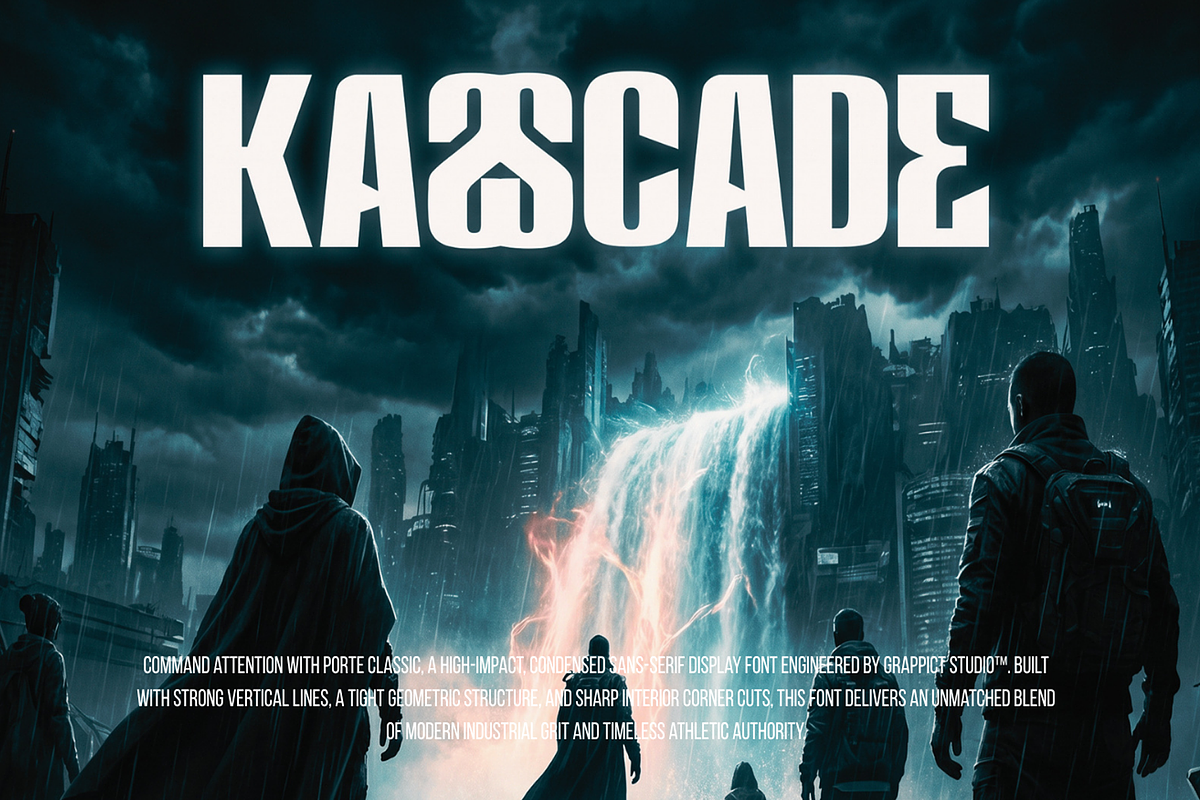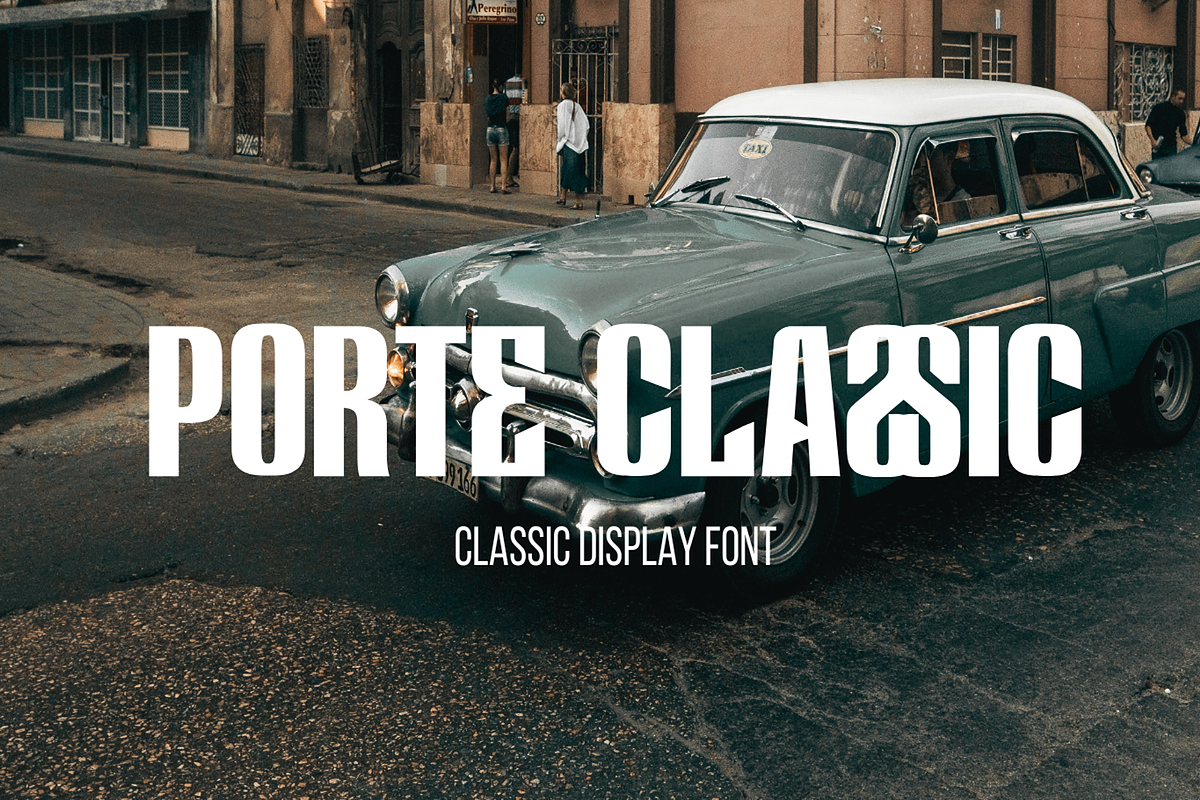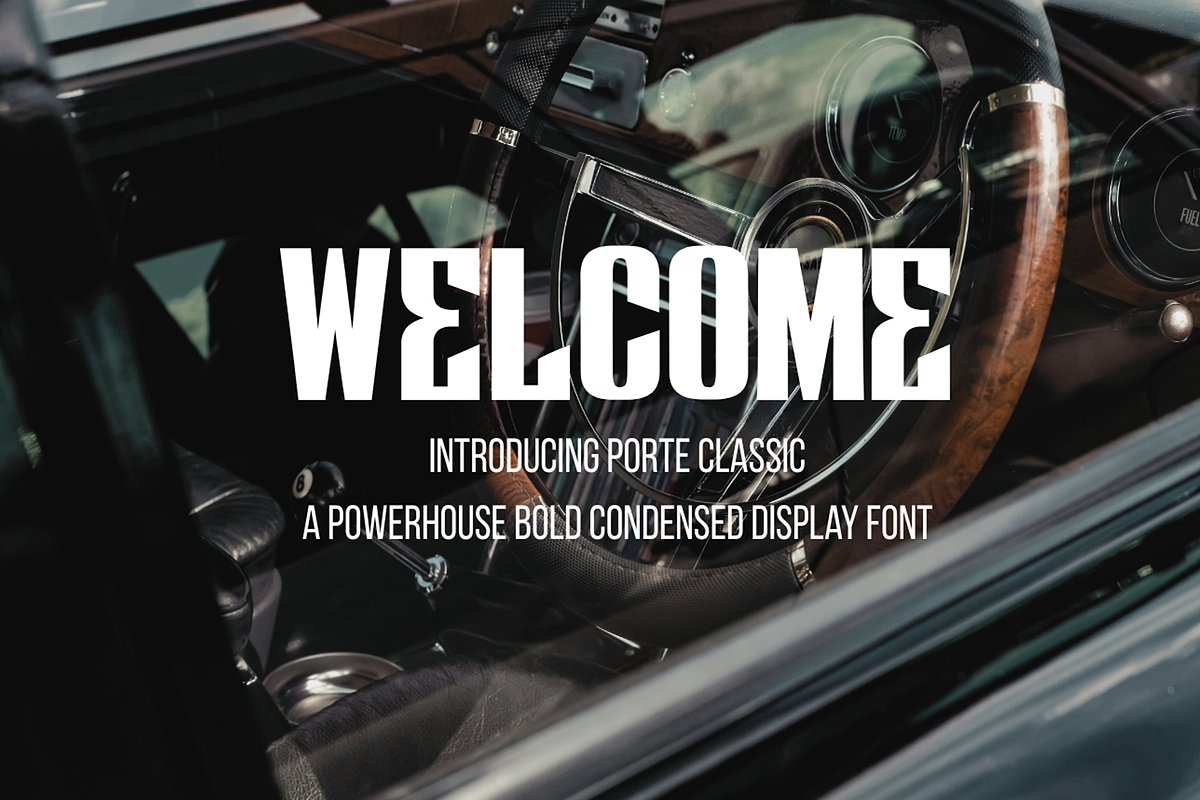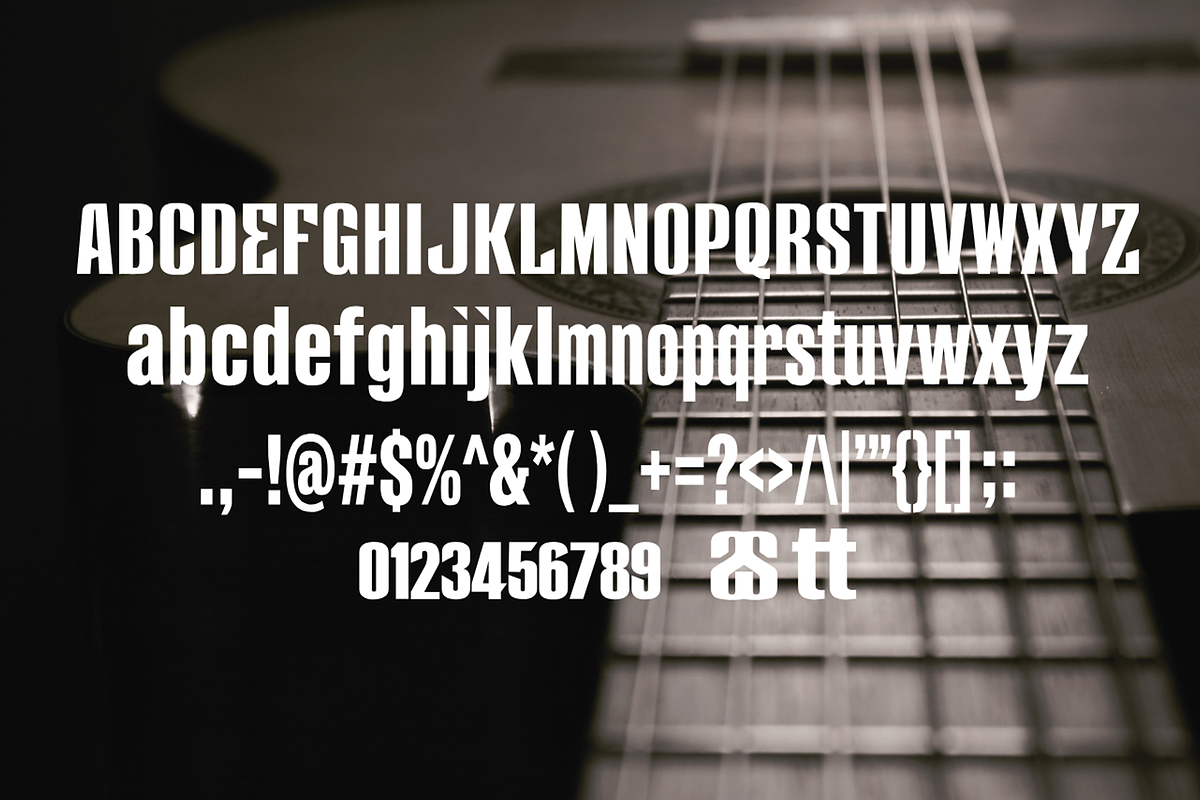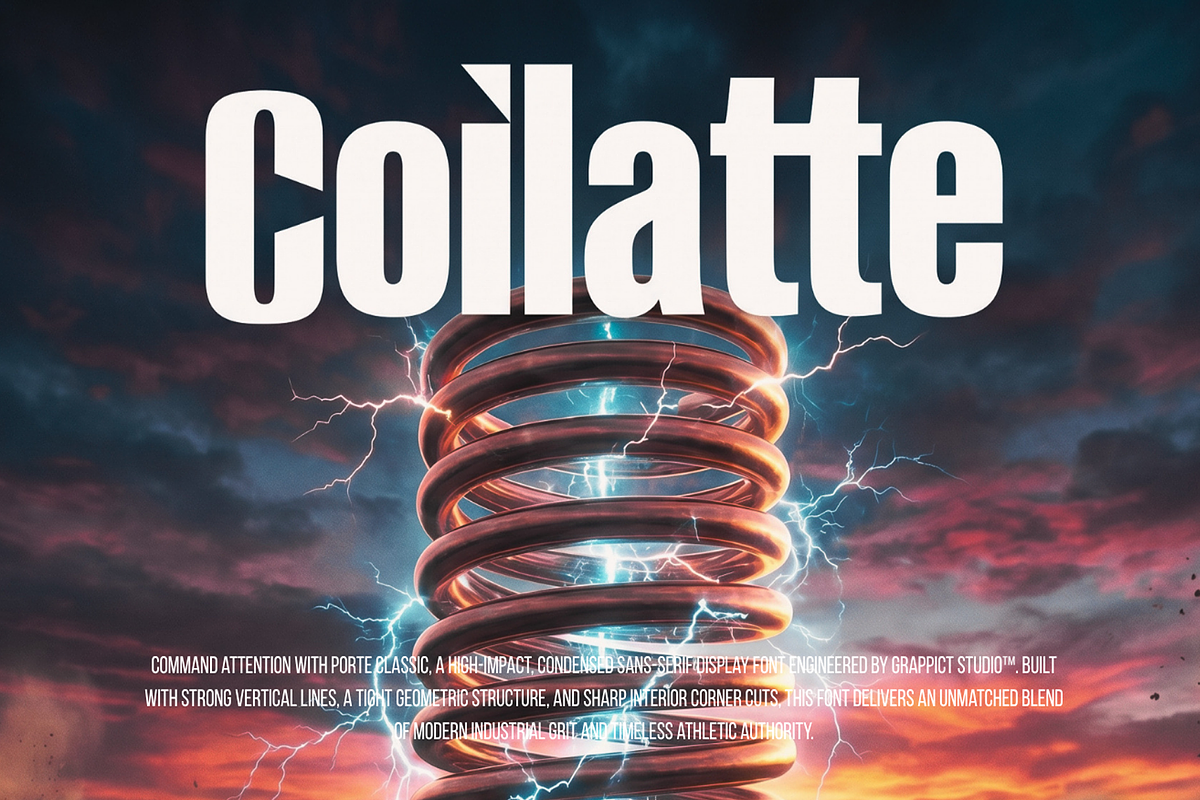
Porte Classic - Bold Classic Display
Introducing Porte Classic – A Powerhouse Bold Condensed Display Font
Command attention with Porte Classic, a high-impact, condensed sans-serif display font engineered by Grappict Studio™. Built with strong vertical lines, a tight geometric structure, and sharp interior corner cuts, this font delivers an unmatched blend of modern industrial grit and timeless athletic authority.
Look closely and you will find subtle, aggressive design details such as the unique architectural cuts in the uppercase 'D', 'E', and 'S' making Porte Classic far more than just your standard condensed font. It is a striking typographic weapon designed for titles that need to scream strength and sophistication.
Ideal for High-Impact Creative Projects:
• Sports Branding & Merchandising: Perfect for jersey numbers, athletic team logos, gym branding, and sportswear apparel graphics.
• Streetwear & Urban Fashion: Give your clothing labels, hangtags, and bold graphic tees an edgy, contemporary look.
• Editorial & Advertising Headlines: Maximum legibility and weight for massive magazine titles, billboard ads, and hard-hitting posters.
• Packaging & Logotypes: Instantly elevates modern product packaging, craft beer labels, automotive branding, and tech logo designs.
• Digital Media & Video Games: Highly visible for YouTube thumbnails, gaming streams, action movie titles, and bold UI headings.
• Porte Classic Uppercase Set (Featuring unique geometric alternate character details)
• Porte Classic Lowercase Set (A perfectly proportioned condensed lowercase layout)
• Custom Ligatures & Stylistic Alternates (Includes specialized ligatures like the unique 'tt' and 'ss' interlocking glyphs)
Why Choose Porte Classic?
• Compact & Ultra-Bold: Designed to save horizontal space while bringing maximum visual weight to your layouts.
• Clean & Professional OpenType Features: Hand-kerked with precision to ensure perfectly balanced letter spacing even at massive scale.